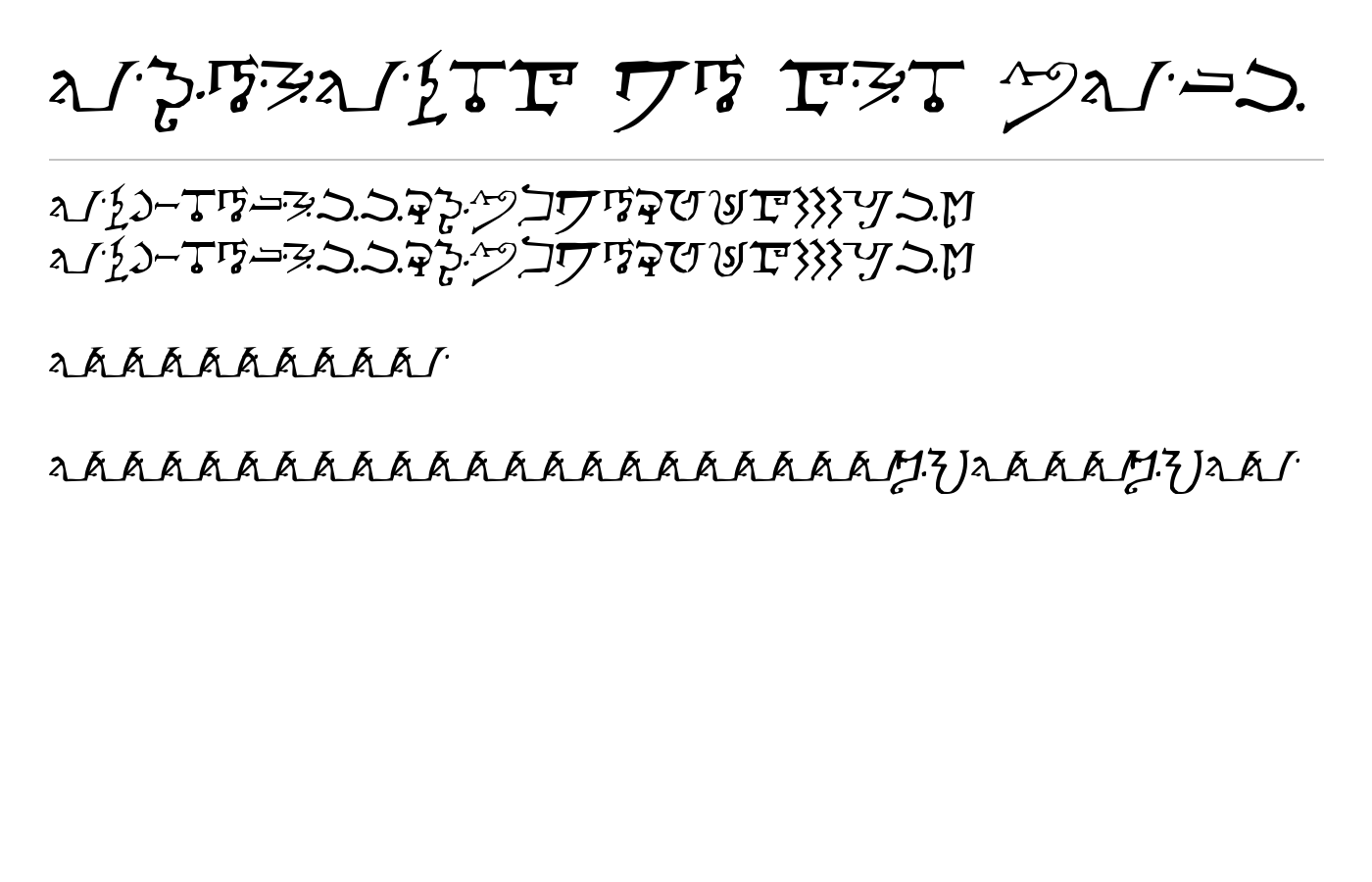
Alphabet of the Magi is a unique, ornamental script font characterized by its mystical and archaic appearance with irregular, angular shapes and decorative dots. Its intricate, hand-drawn style makes it ideal for adding an esoteric or magical vibe to designs, perfect for fantasy themes or mysterious branding. This font works best in display uses such as logos, headlines, and themed invitations where a dramatic and otherworldly feel is desired.
Alphabet of the Magi Font
About Alphabet of the Magi Font